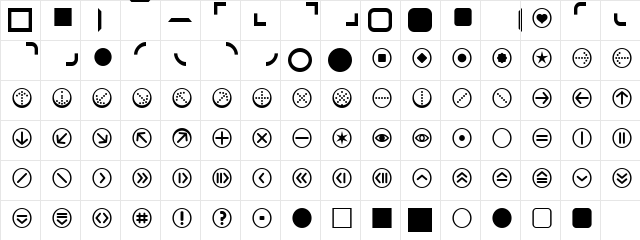
ButtonBonus Regular
Design Context for ButtonBonus Typeface
ButtonBonus is a composed and adaptable typeface that performs quietly and consistently across a wide range of design contexts.